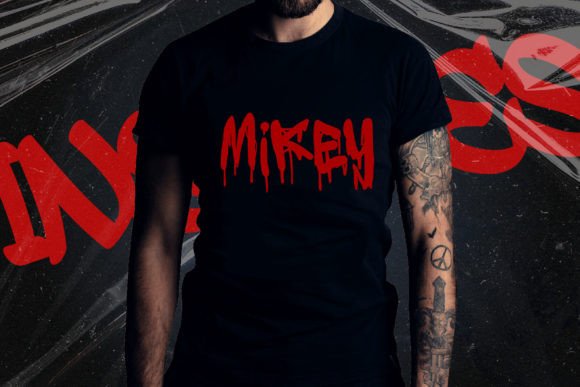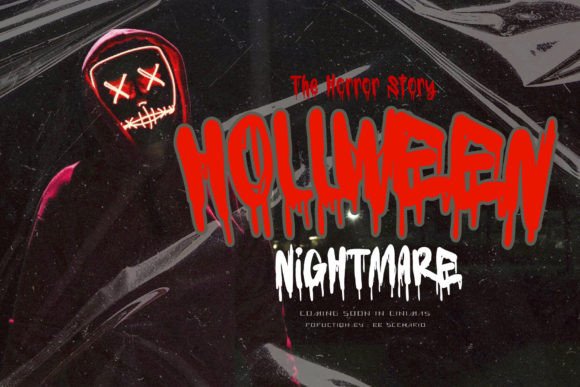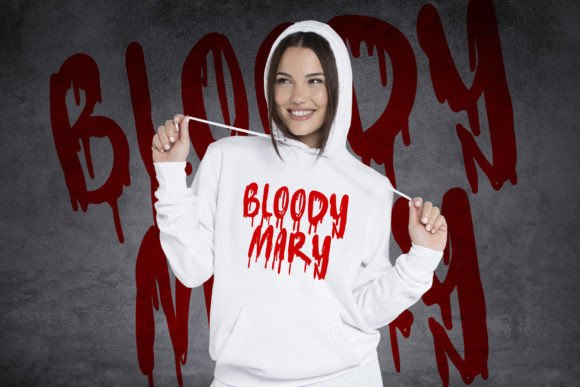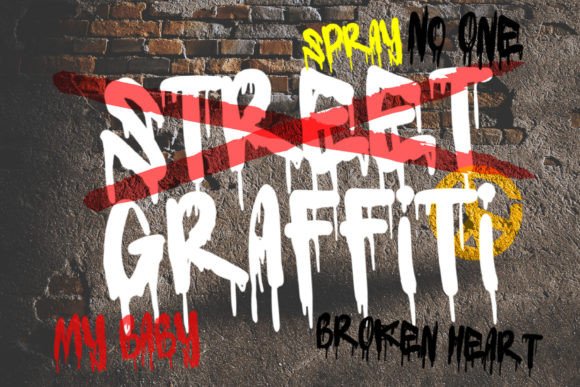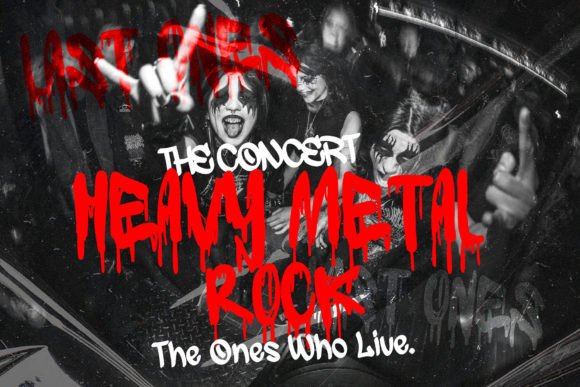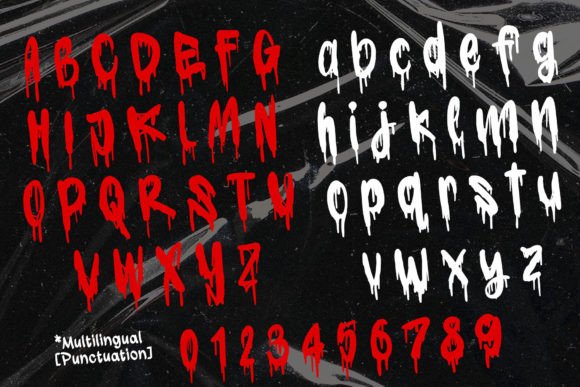
Introduction to Slayer Font
Do you remember that magical moment when you stumbled upon the perfect design element, and your creative project suddenly came alive? It’s a feeling that’s hard to replicate, but one thing’s for sure – it’s a game-changer. For designers, having access to a unique and high-quality font can make all the difference in elevating their work. And, if you’re looking for a design resource that’s sure to add a touch of whimsy to your October-themed celebrations, look no further than the Slayer Font.
With its playful, whimsically-shaped characters, the Slayer Font is the perfect choice for designers seeking to add a touch of mystery and intrigue to their work. Whether you’re creating spooky Halloween designs or festive autumnal graphics, this font is sure to be a valuable addition to your design arsenal. And, as a free download, it’s an accessible and transparent background that won’t break the bank.
Key Features of Slayer Font
- High-quality font with a unique, bold design perfect for creative projects.
- Transparent background, allowing for seamless integration with various backgrounds and designs.
- Includes multiple font styles and sizes, ranging from 12 to 72 points, to suit various design needs.
- Designed to be versatile and easy to use, making it an excellent addition to any design project.
Honest Review: Slayer Font
As a designer, I’m always on the lookout for high-quality fonts to elevate my creative projects. The Slayer Font caught my attention with its edgy, metal-inspired aesthetic, making it a great addition to any design resource.
What works well: ✨ The Slayer Font’s bold, distressed texture adds a unique touch to any design, and its transparent background makes it easy to integrate into various design elements. The font’s versatility makes it suitable for a wide range of creative projects, from music and metal-inspired designs to edgy, industrial-style graphics.
What could be improved: ⚠️ One limitation of the Slayer Font is its limited character set. While it includes a decent selection of uppercase and lowercase letters, it’s missing some essential punctuation marks and special characters. This may be a drawback for designers who need to use the font for more complex projects.
Overall, I’m impressed with the Slayer Font’s design and functionality. It’s a great free download for designers who want to add a touch of metal-inspired flair to their projects. However, its limitations should be taken into consideration before using it for more complex or professional designs.
- Edgy, metal-inspired aesthetic
- Great for creative projects
- Limited character set
Tips for Getting the Most Out of Slayer Font
To get the most out of Slayer Font, experiment with different font sizes, colors, and styles. You can also combine it with other design elements to create a unique and eye-catching design.
Common Use Cases for Slayer Font
Slayer Font is perfect for creating high-quality designs for various creative projects, such as logos, brochures, and social media graphics. Its transparent background feature makes it ideal for designing with images and backgrounds.